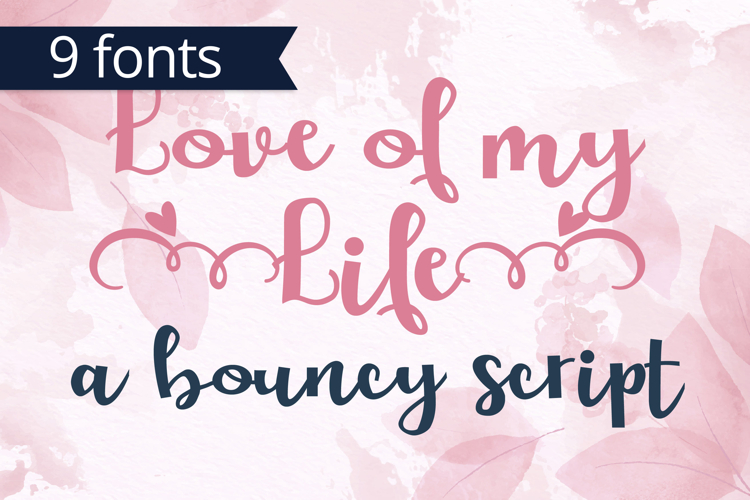
ZP Love of my Life Font Family
This hand-crafted font is a whimsical, hand-written, script has a bouncy baseline with perfectly "lovely" flourishes you can access through typing the the less than and greater than glyphs. There are 9 variations included.